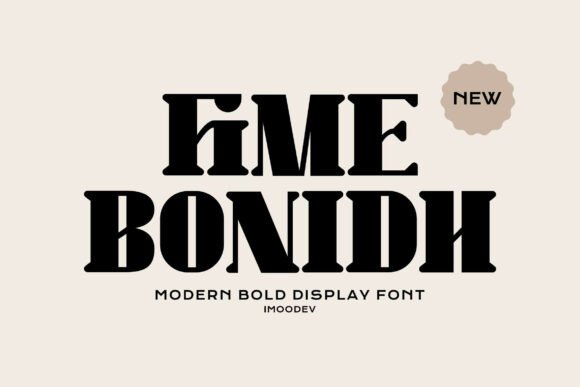
Fime Bonidh Font: A Quirky and Bold Display Font for Modern Elegance and Vintage Charm
In the world of typography, fonts play a crucial role in conveying the tone and personality of a brand or design. With the numerous font options available, finding the perfect one that blends modern elegance with vintage charm can be a daunting task. However, if you’re looking for a font that stands out from the crowd, look no further than Fime Bonidh Font. This quirky, bold display font is designed to make a statement, and in this article, we’ll explore its features, uses, and benefits.
What is Fime Bonidh Font?
Fime Bonidh Font is a unique and eye-catching display font that combines the sophistication of modern design with the charm of vintage typography. Its chunky serifs and distinctive cuts in details make it perfect for headlines, branding, and editorial layouts. The font features a harmonious balance of geometric precision and expressive curves, giving it a distinctive and stylish look.
Key Features of Fime Bonidh Font
- Chunky Serifs: The font’s chunky serifs give it a bold and sturdy look, making it perfect for headlines and titles.
- Unique Cuts: The distinctive cuts in details add a touch of elegance and sophistication to the font.
- Geometric Precision: The font’s geometric precision ensures that the letterforms are clean and precise.
- Expressive Curves: The expressive curves in the font add a touch of warmth and personality to the letterforms.
- Distinctive Alternates and Ligatures: The font features distinctive alternates and ligatures that add versatility and creativity to the design.
Uses of Fime Bonidh Font
Fime Bonidh Font is perfect for a variety of design projects, including:
- Magazine Titles: The font’s bold and eye-catching design makes it perfect for magazine titles and covers.
- Fashion Campaigns: The font’s elegant and sophisticated look makes it perfect for fashion campaigns and branding.
- Logos: The font’s unique and distinctive design makes it perfect for logos and branding.
- Editorial Headlines: The font’s bold and chunky design makes it perfect for editorial headlines and titles.
- Packaging: The font’s elegant and sophisticated look makes it perfect for packaging design.
- Album Covers: The font’s bold and eye-catching design makes it perfect for album covers and music branding.
Benefits of Using Fime Bonidh Font
Using Fime Bonidh Font offers several benefits, including:
- Unique and Eye-Catching Design: The font’s unique and eye-catching design makes it perfect for designers looking to make a statement.
- Versatility: The font’s distinctive alternates and ligatures add versatility and creativity to the design.
- Elegance and Sophistication: The font’s elegant and sophisticated look makes it perfect for high-end branding and design.
- Readability: The font’s bold and chunky design makes it easy to read, even at small sizes.
Tips for Using Fime Bonidh Font
Here are some tips for using Fime Bonidh Font:
- Use it for Headlines: The font’s bold and chunky design makes it perfect for headlines and titles.
- Experiment with Alternates and Ligatures: The font’s distinctive alternates and ligatures add versatility and creativity to the design.
- Pair it with Other Fonts: The font pairs well with other fonts, including sans-serif and script fonts.
- Use it for Branding: The font’s elegant and sophisticated look makes it perfect for branding and logos.
Fime Bonidh Font is a quirky and bold display font that blends modern elegance with vintage charm. Its chunky serifs, unique cuts, and distinctive alternates and ligatures make it perfect for headlines, branding, and editorial layouts. With its versatility, elegance, and sophistication, Fime Bonidh Font is the perfect choice for designers looking to make a statement.